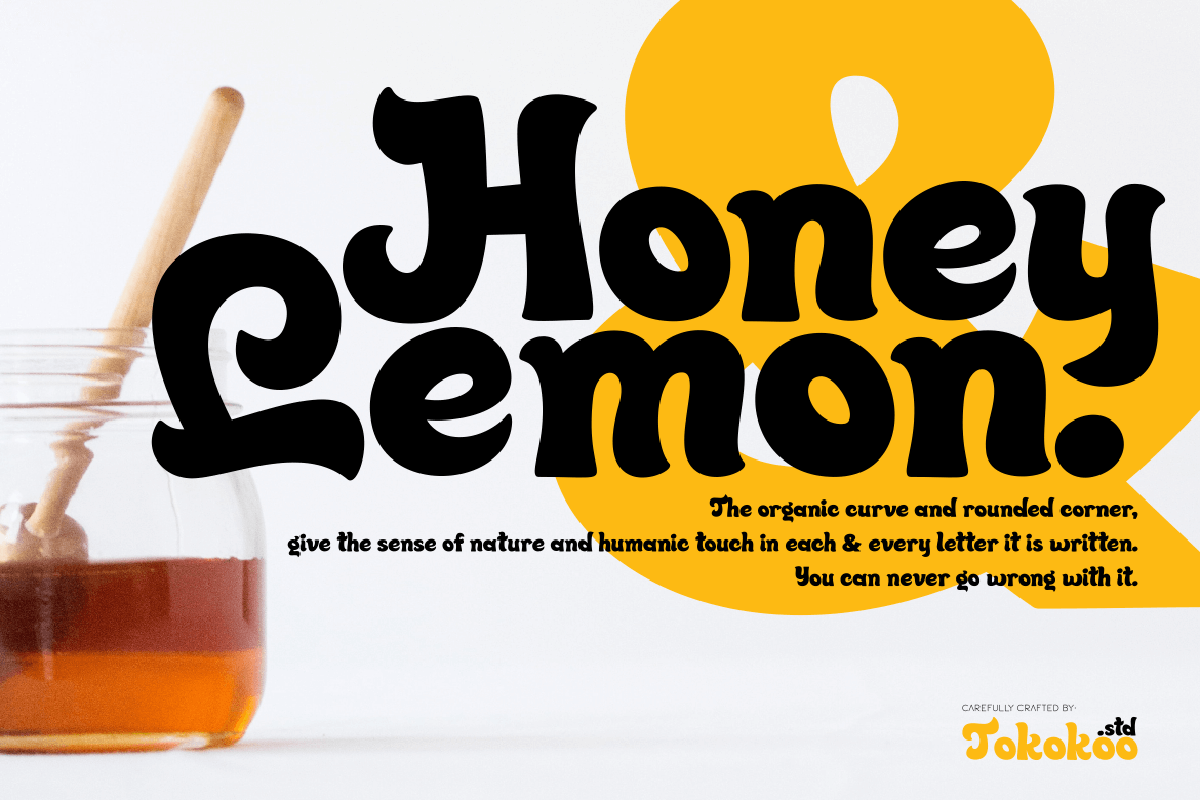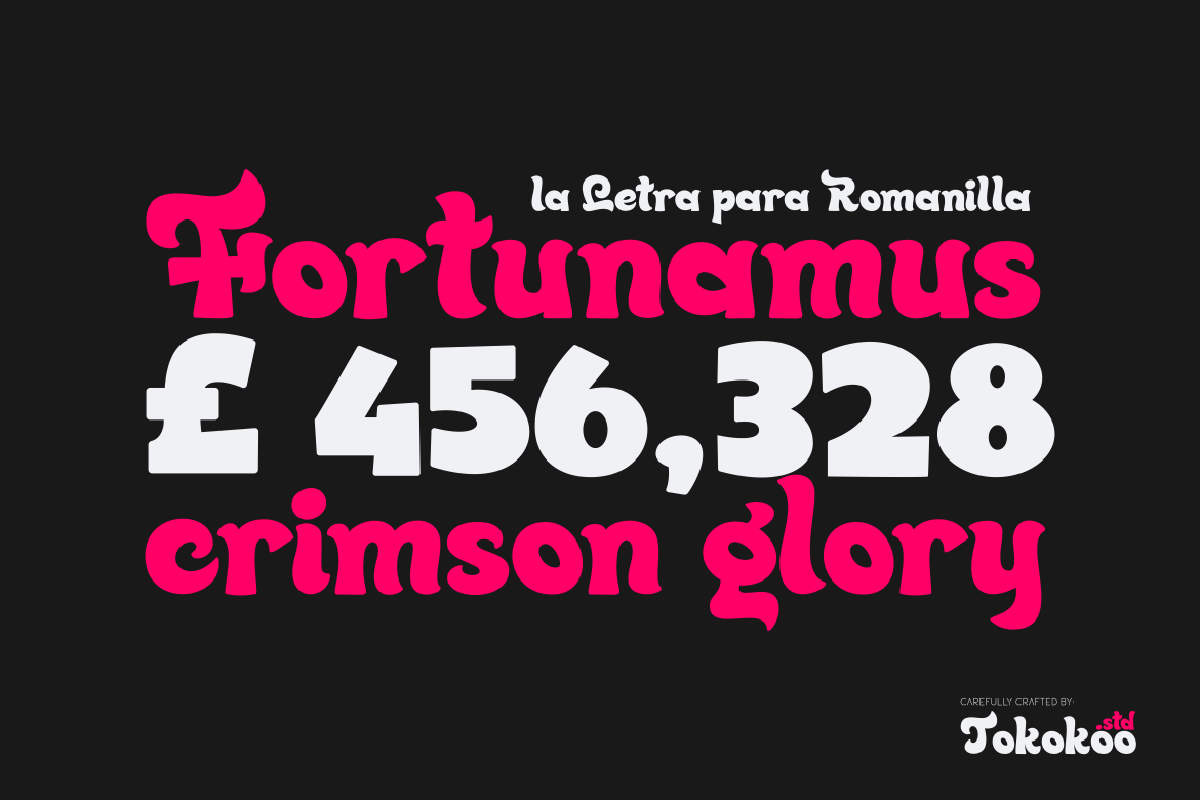
Quincy Jhons Free Font
Quincy Jhons Free Font comes with a bold attitude but in a sexy way, just like jazz groves that grow inside your soul. The chubby but strong shape, not only will boost its readability but also makes a higher impact as headlines. This free typeface was designed by the talented Tokokoo Studio. If you like it don’t forget to check out the full version.